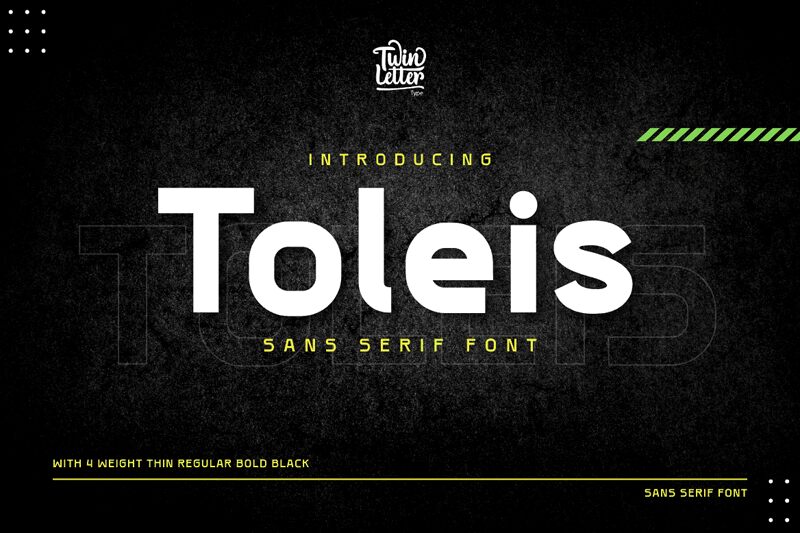
ToleisBlack
Toleis Black font by Twinletter is a free sans serif font with a minimalistic and professional feel. Its geometric design elements, clean lines, and modern execution make it one of the most valuable fonts to have access to when working on digital projects that require contemporary appeal.
It’s easy to recognize this font by its extended shape and overall robust structure. Let it into your logos, interfaces, applications and websites. Use it for text within publications like books or magazines as well as posters and packaging designs of all types where a sense of modernity is required.